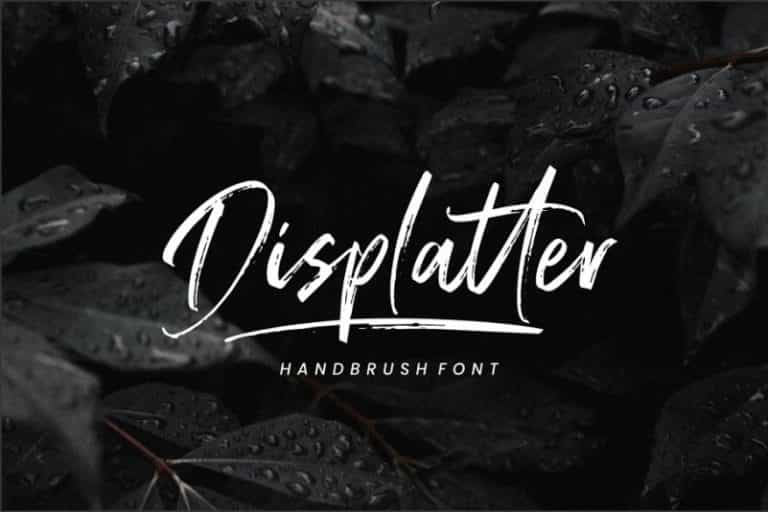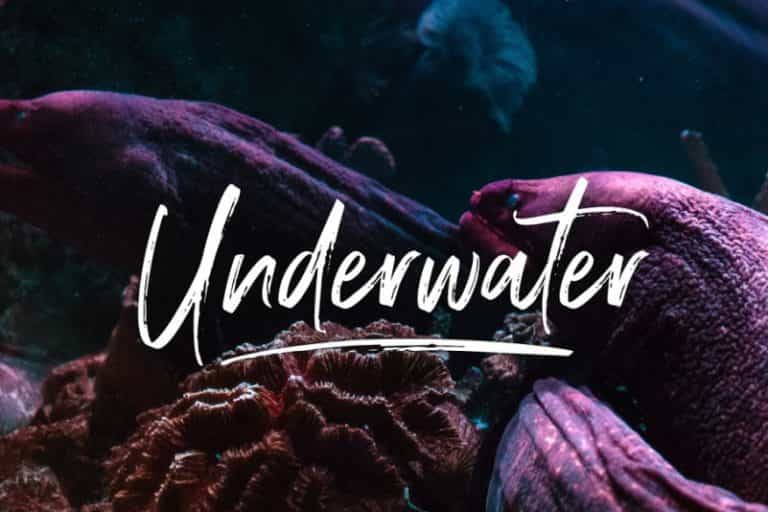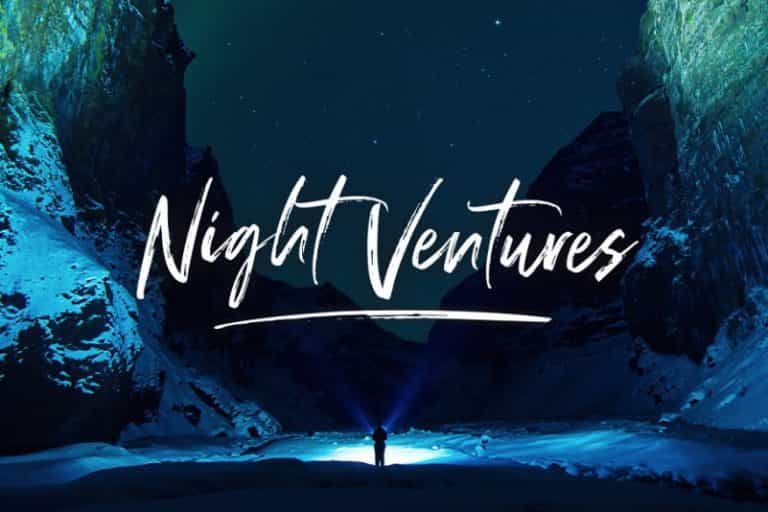
Discover Displatter Handbrush Font, part of the Brush collection—a versatile and unique font perfect for adding a personal touch to your projects. Download it for free and enjoy crafting designs with style, from invitations to social media posts. This font is available exclusively for personal use, giving you the freedom to create without limits. Unlock your creativity with Displatter Handbrush Font today!
Introducing Displatter Font. Displatter Handbrush Font is a naturally handbrused font, it is the ideal for logo, invitation, stationery, wedding designs and social media posts. Displatter has all the uppercase and lowercase letters, multilingual symbols, numbers and punctuation.